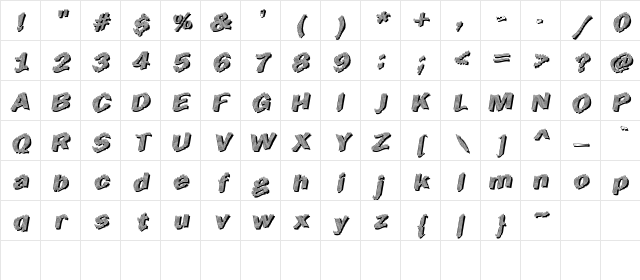
Early Tickertape Regular Free Font
Early Tickertape Regular
Complete Early Tickertape Regular glyph index. Displaying only characters natively supported by Early Tickertape Regular font.
Design Context for Early Tickertape
Early Tickertape is a composed and adaptable typeface that performs quietly and consistently across a wide range of design contexts.